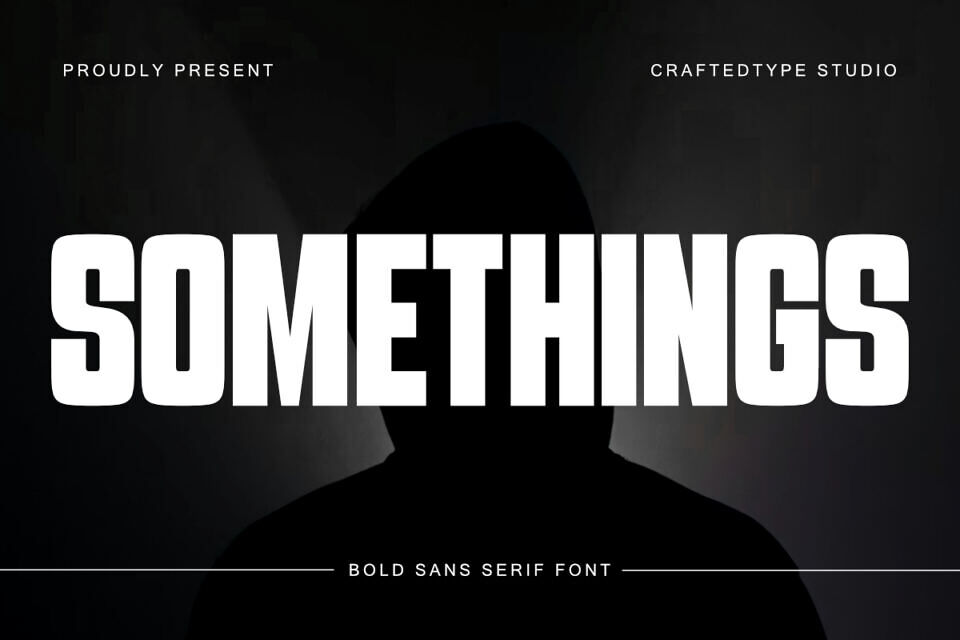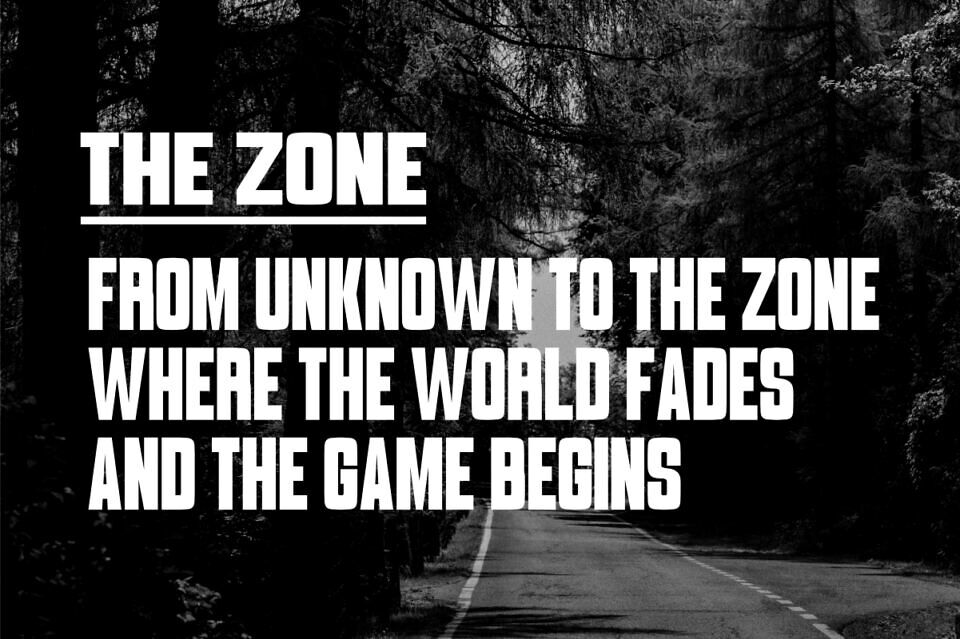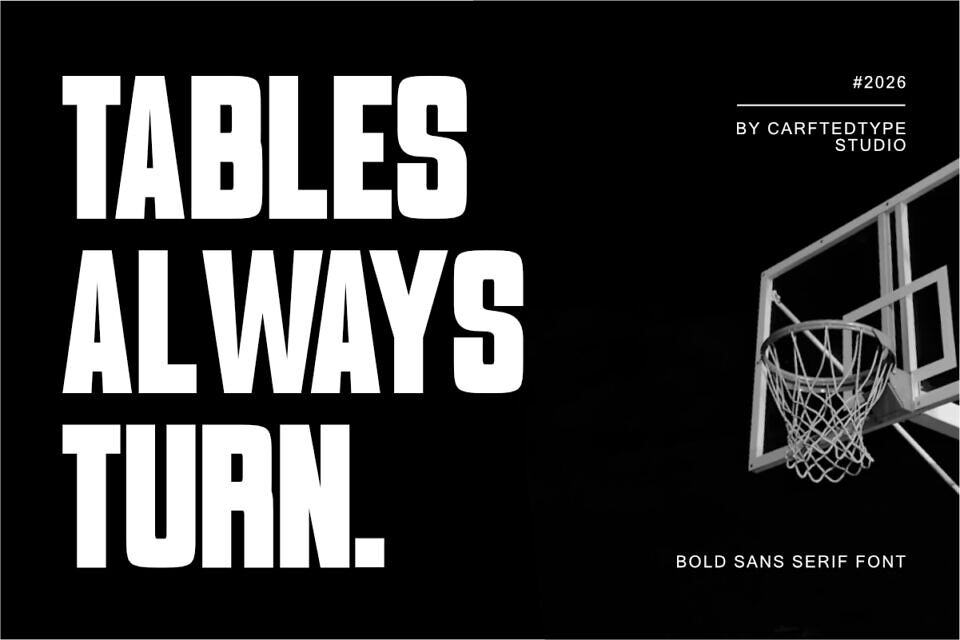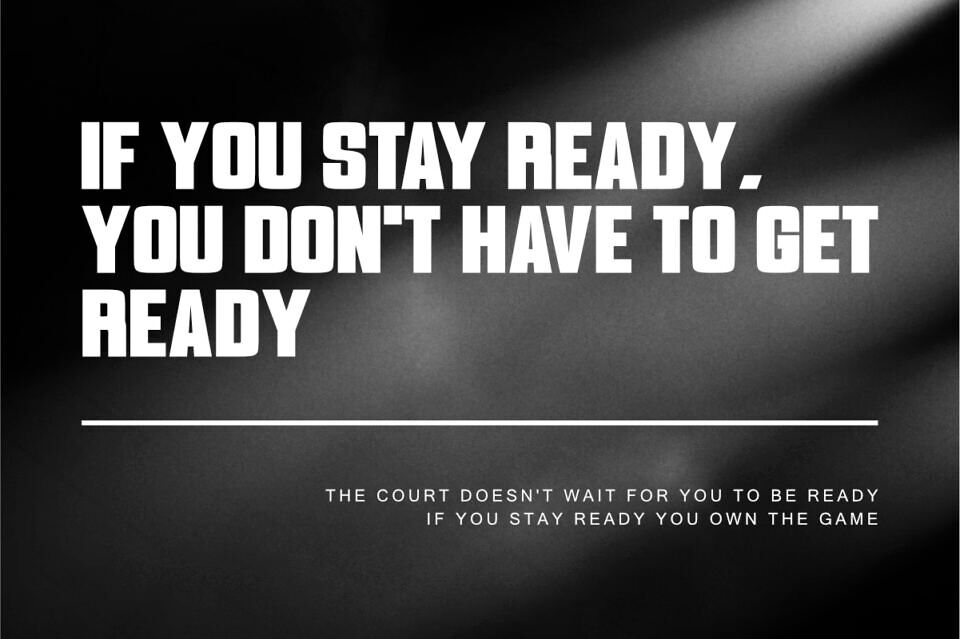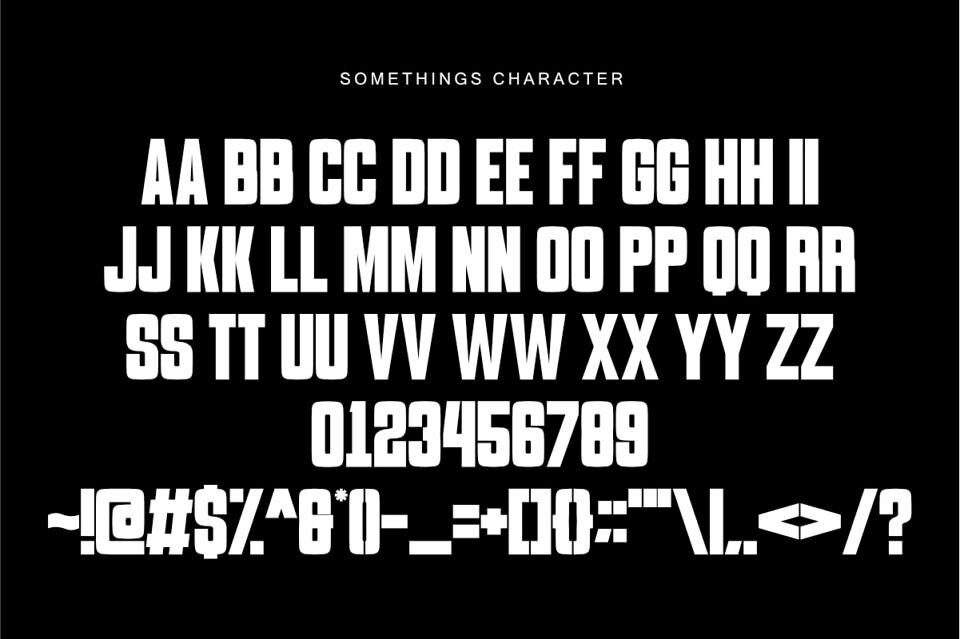
Somethings is a powerful and impactful bold sans serif font designed for creators who need a strong visual presence. With its solid structure and clean geometric lines, this typeface is perfect for a wide range of creative projects, from modern branding and logos to high-energy social media graphics.
It is particularly well-suited for Print On Demand (POD) merchandise like t-shirts, hoodies, and posters where bold readability is key. Crafters using Cricut or Silhouette will appreciate its clean edges, making it easy to cut and weed for vinyl projects. Whether you are working on industrial-themed designs or contemporary streetwear apparel, Somethings provides a professional and energetic edge to your work.